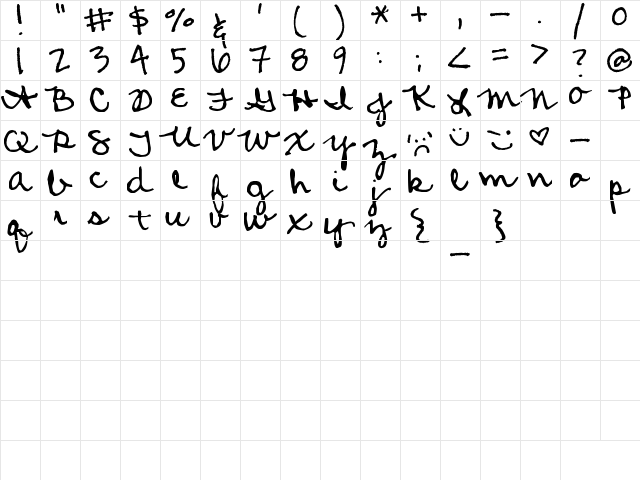
Amanda's Script Smooth Regular
| Designer | Amanda Bottoms |
Design Context for Amanda's Script Smooth Typeface
Amanda's Script Smooth brings a calligraphic fluidity to the page — its connecting strokes and expressive curves give it an unmistakably human quality.
Font Pairing: Combine Amanda's Script Smooth with a simple geometric sans for maximum contrast — the tension between flowing curves and clean structure is a classic typographic pairing.
Pro Tip: Pair Amanda's Script Smooth with a clean sans-serif for supporting text. The contrast between fluid script and geometric structure creates an elegant typographic hierarchy.